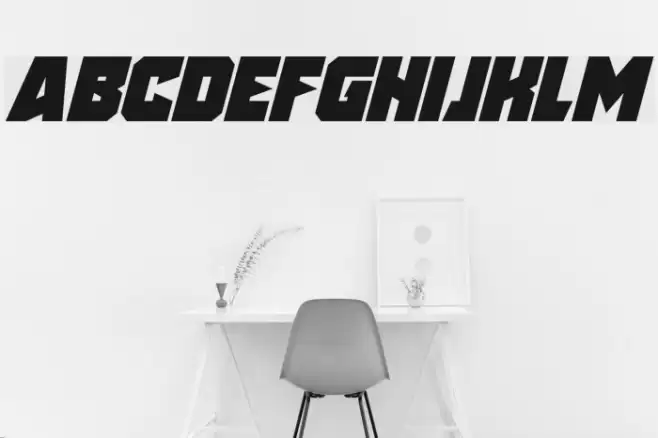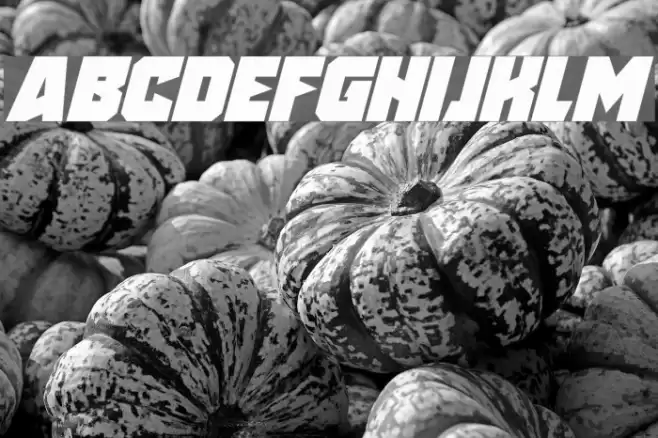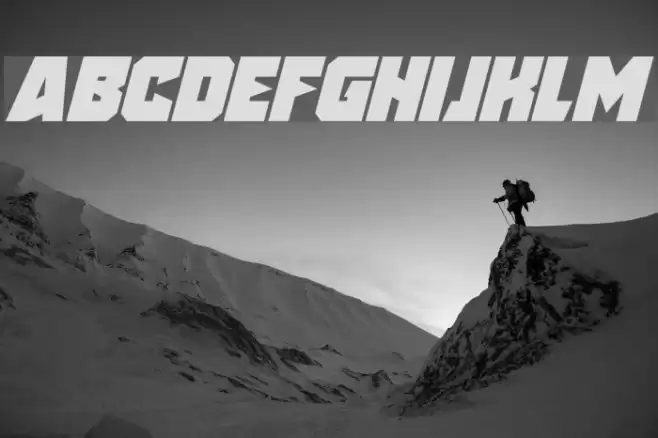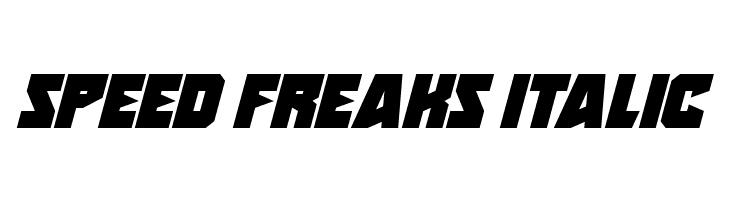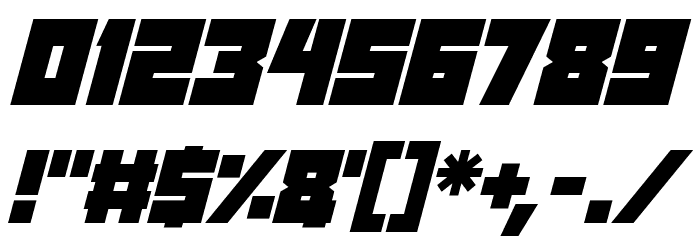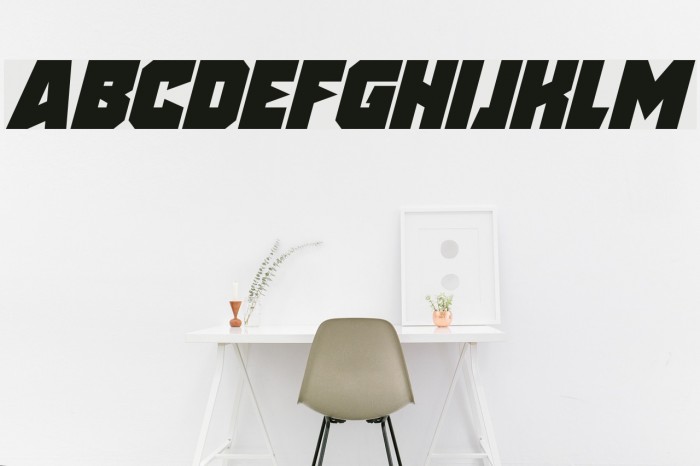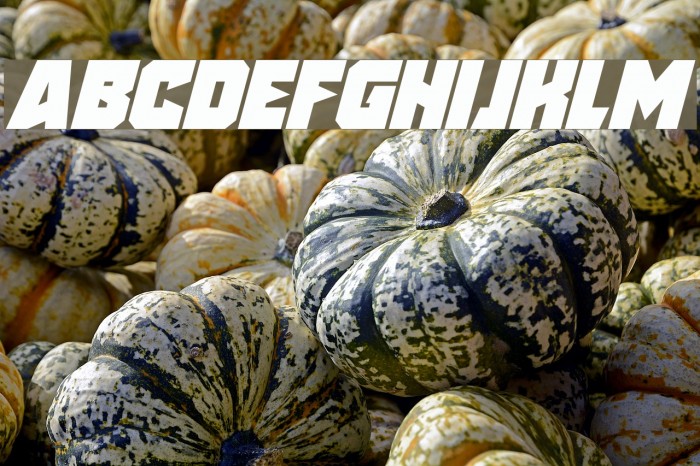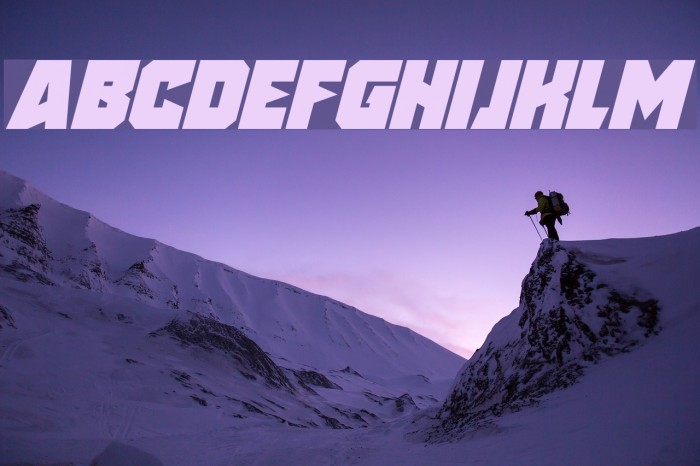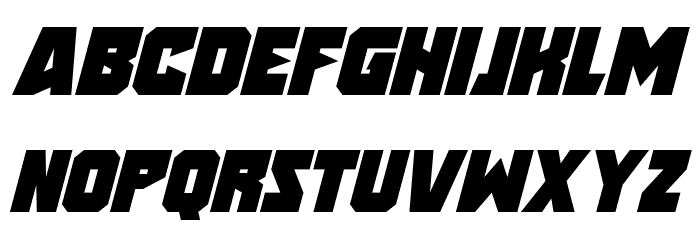
Speed Freaks Italic Font
Speed Freaks Italic Description
This font features a bold, italicized style with sharp, angular edges that convey a sense of speed and dynamism. The characters are heavily slanted, enhancing the impression of motion. The uppercase and lowercase letters maintain a consistent geometric structure, while the numerals and special characters follow the same angular theme. The overall appearance is aggressive and modern, making it suitable for projects that require a strong visual impact.
A bold, italicized font with sharp, angular edges and a dynamic, modern style from Uncategorized fonts.
- Proposed Projects: Ideal for use in sports branding, automotive advertisements, video game titles, and any project that requires a sense of speed and energy.